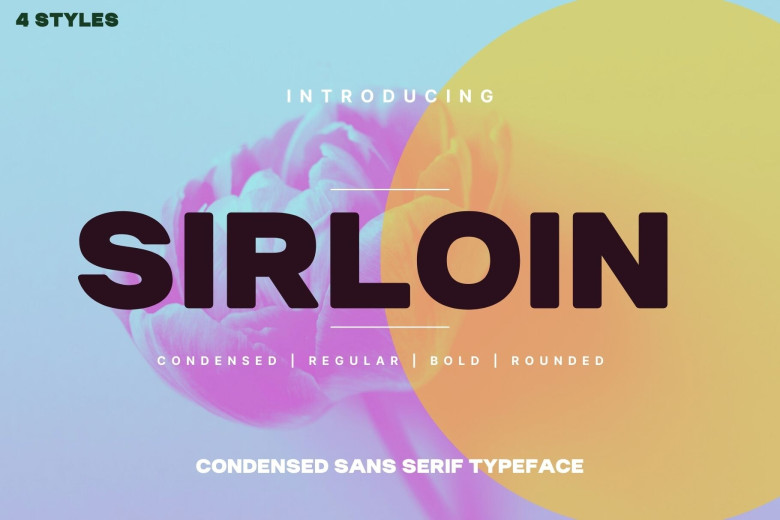
Sirloin Font
Sirloin is a strong bold sans serif, with solid lines, paired with bold yet soft rounding. Sirloin will turn any creative idea into your true work of art! It’s perfect for logotypes, signage, branding, apparel, posters, social media, headlines, titles, large format prints and more. This font is perfect for branding, packaging, logotype, headline, wedding invitation, etc
Sirloin Sans Serif Font